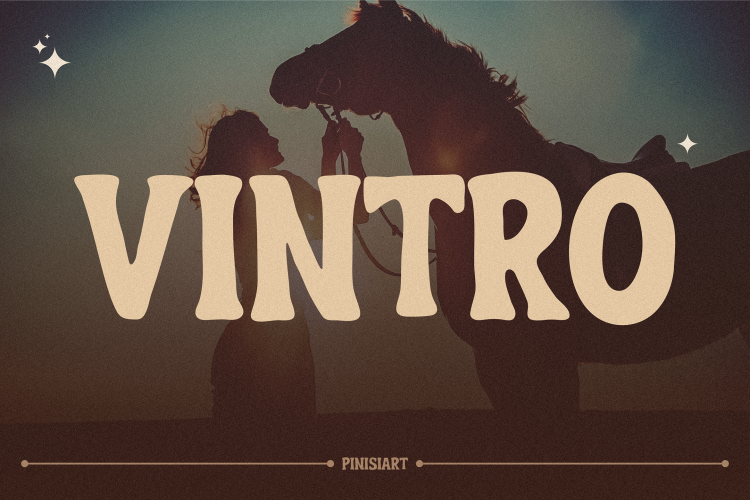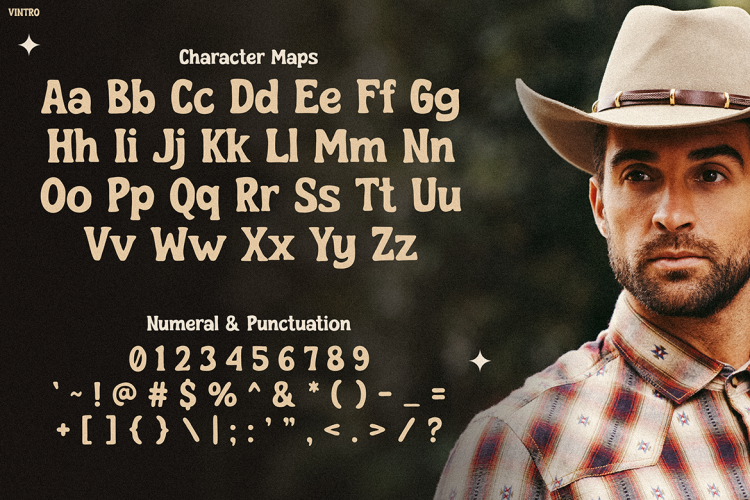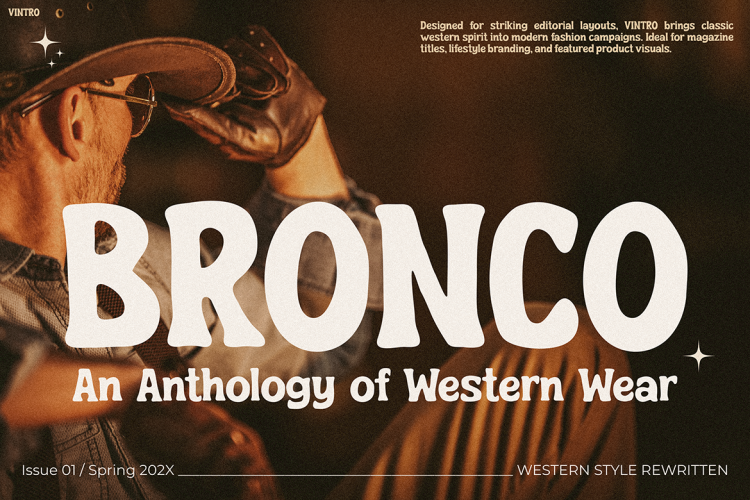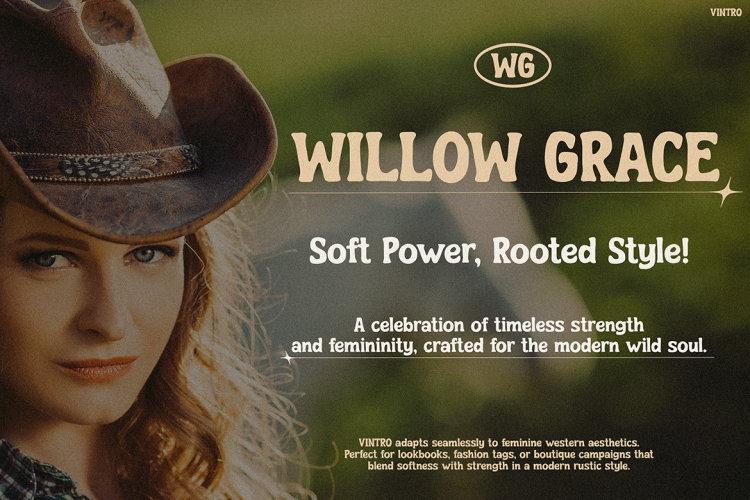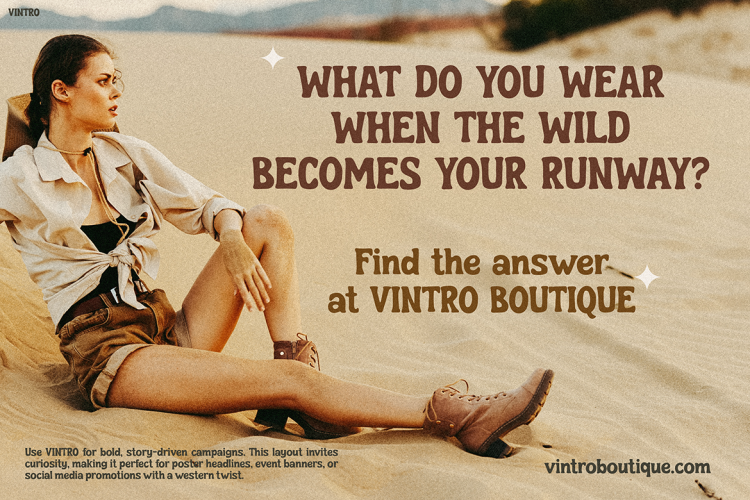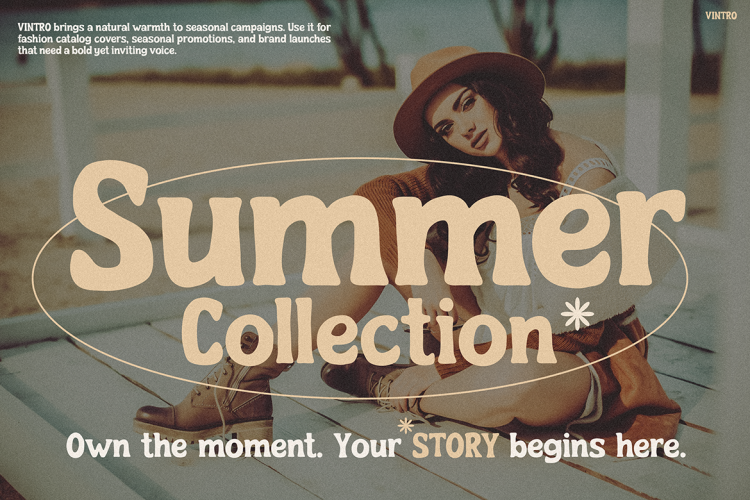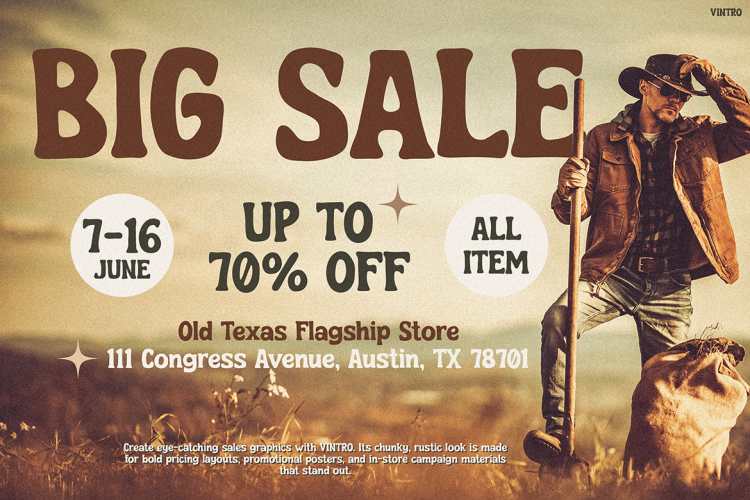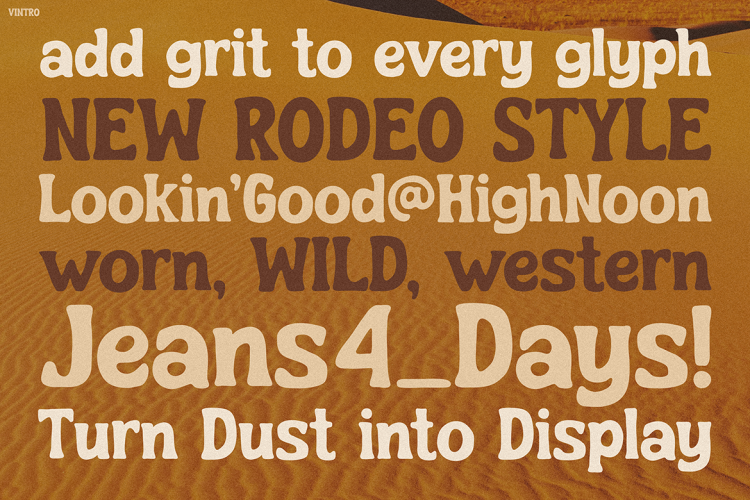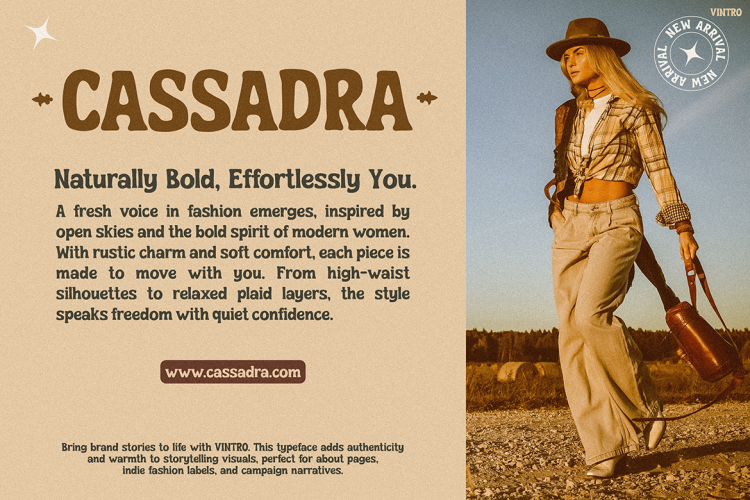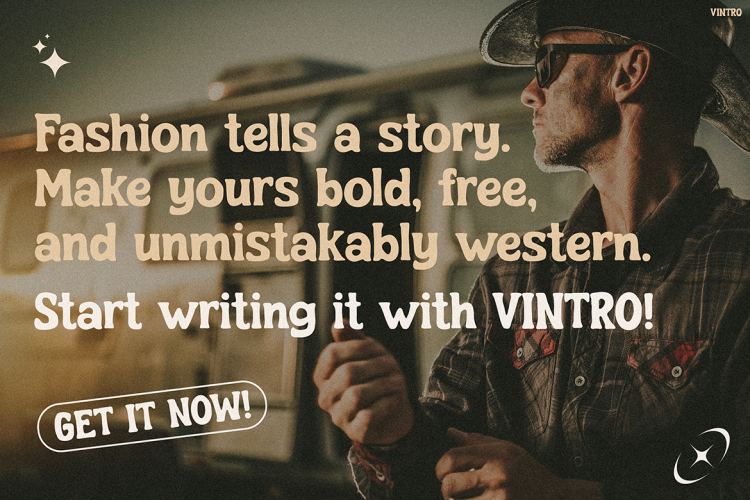
Instagram Font Vintro instantly captures attention with its bold, nostalgic flairโperfectly designed for standout visuals and warm, inviting campaign aesthetics. This typeface brings a vintage Western soul into the modern world. As a result, it evokes the charm of retro poster art while maintaining clarity and readability. Moreover, with its chunky, softly rounded serifs and playful proportions, Vintro injects a welcoming and earthy vibe into any design. Not only that, but the slightly irregular letterforms give it a handcrafted, natural feel that resonates with authenticityโmaking it ideal for fashion brands, promotional posters, seasonal campaigns, and lifestyle visuals. Whether itโs a summer collection lookbook or a big sale announcement, Vintroโs aesthetic amplifies visual storytelling with bold personality and rustic elegance.
The Vintro font combines boldness with warmthโeach letter is crafted with careful attention to balance, giving it a friendly yet confident personality. Consequently, it becomes especially effective in visual storytelling where tone and mood are everything. Furthermore, it works beautifully across digital and print platforms, especially for Instagram campaigns where first impressions matter most. Thanks to its clean yet expressive character map and comprehensive punctuation support, Vintro allows for dynamic layouts and consistent branding. From large headlines to short brand statements, it enhances messages with its visually engaging appeal.
Instagram Font Vintro Best For
Vintro is perfect for creatives, fashion entrepreneurs, boutique owners, social media marketers, and lifestyle influencers who want to infuse their content with soul and standout flair. In particular, itโs a go-to choice for:
Independent fashion brands wanting a warm, Americana tone
Social media designers needing high-impact Instagram carousel and story headers
Event promoters crafting seasonal or western-inspired visuals
Content creators designing lookbooks, catalogs, or pop-up event graphics
Because of its authenticity and charm, it lends credibility and emotion to any brand story, helping audiences feel more connected to the message.